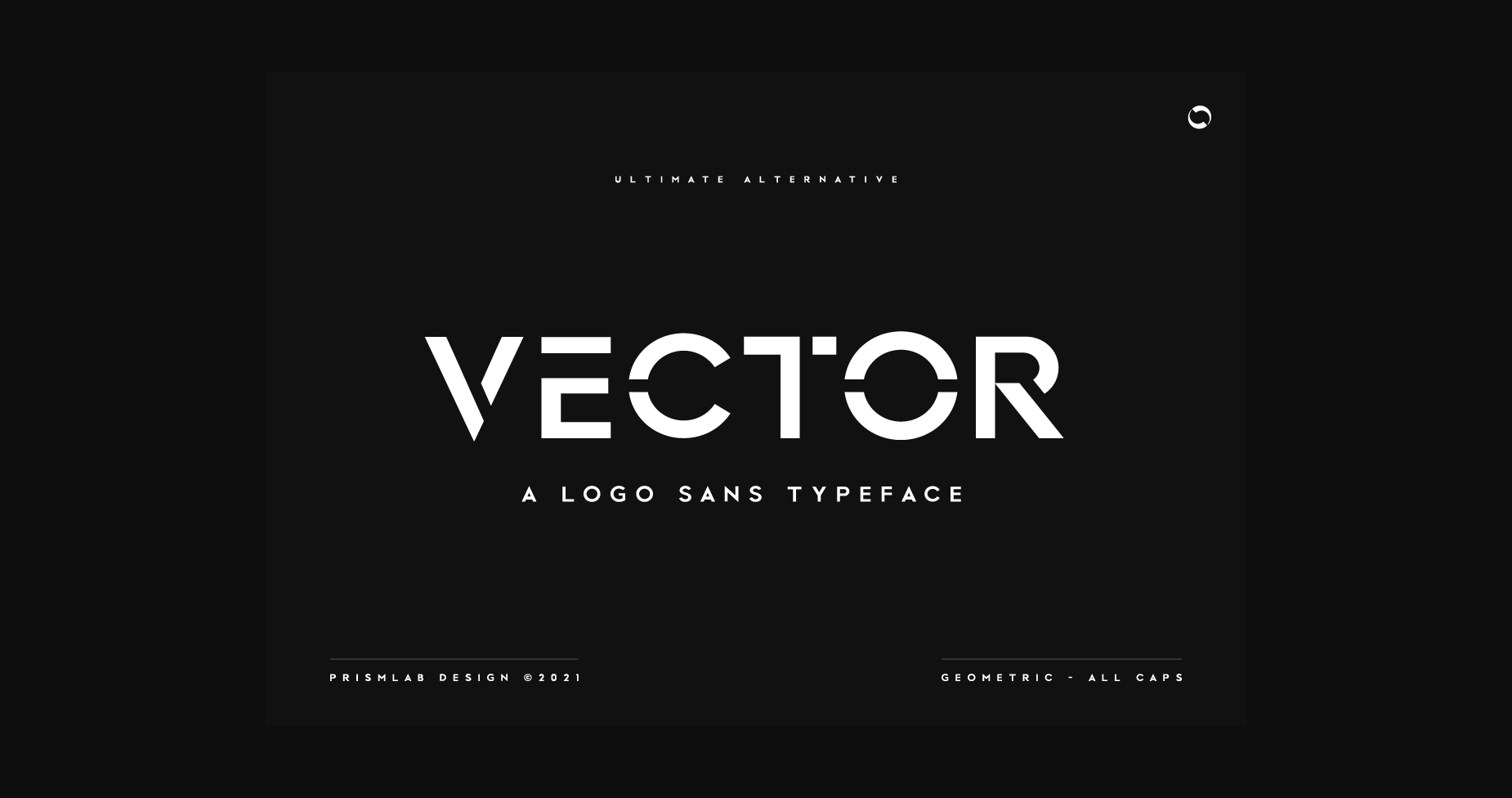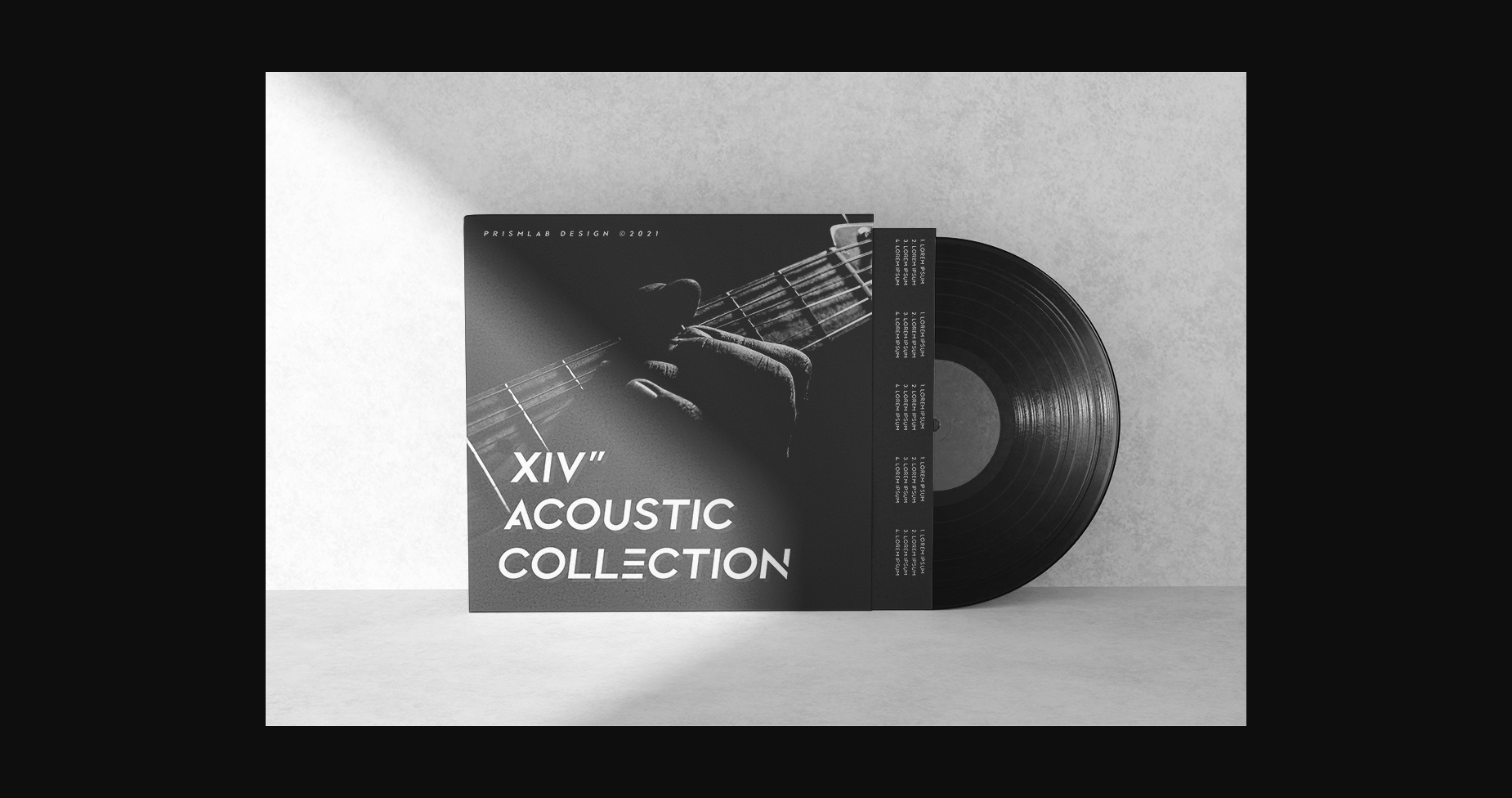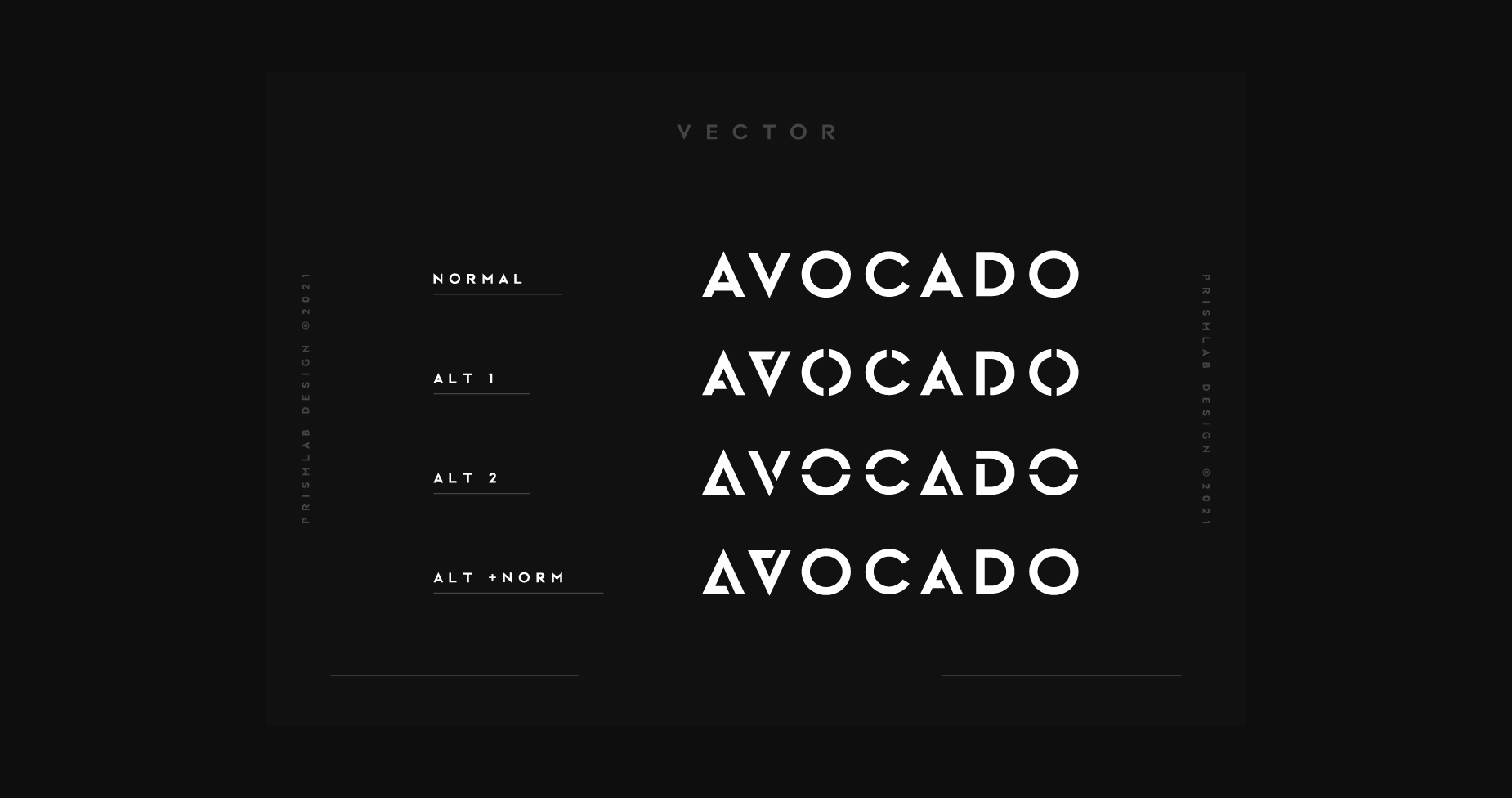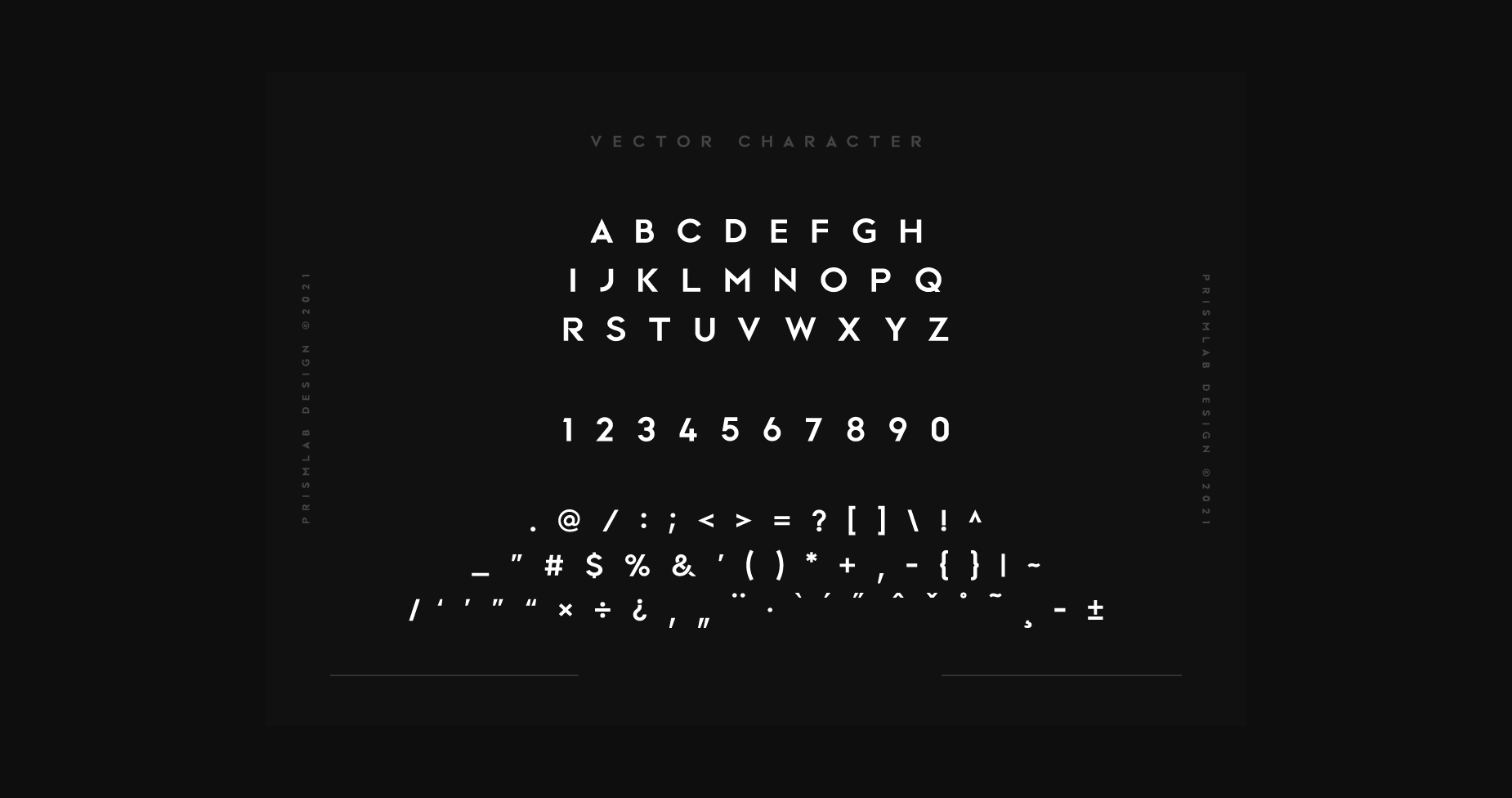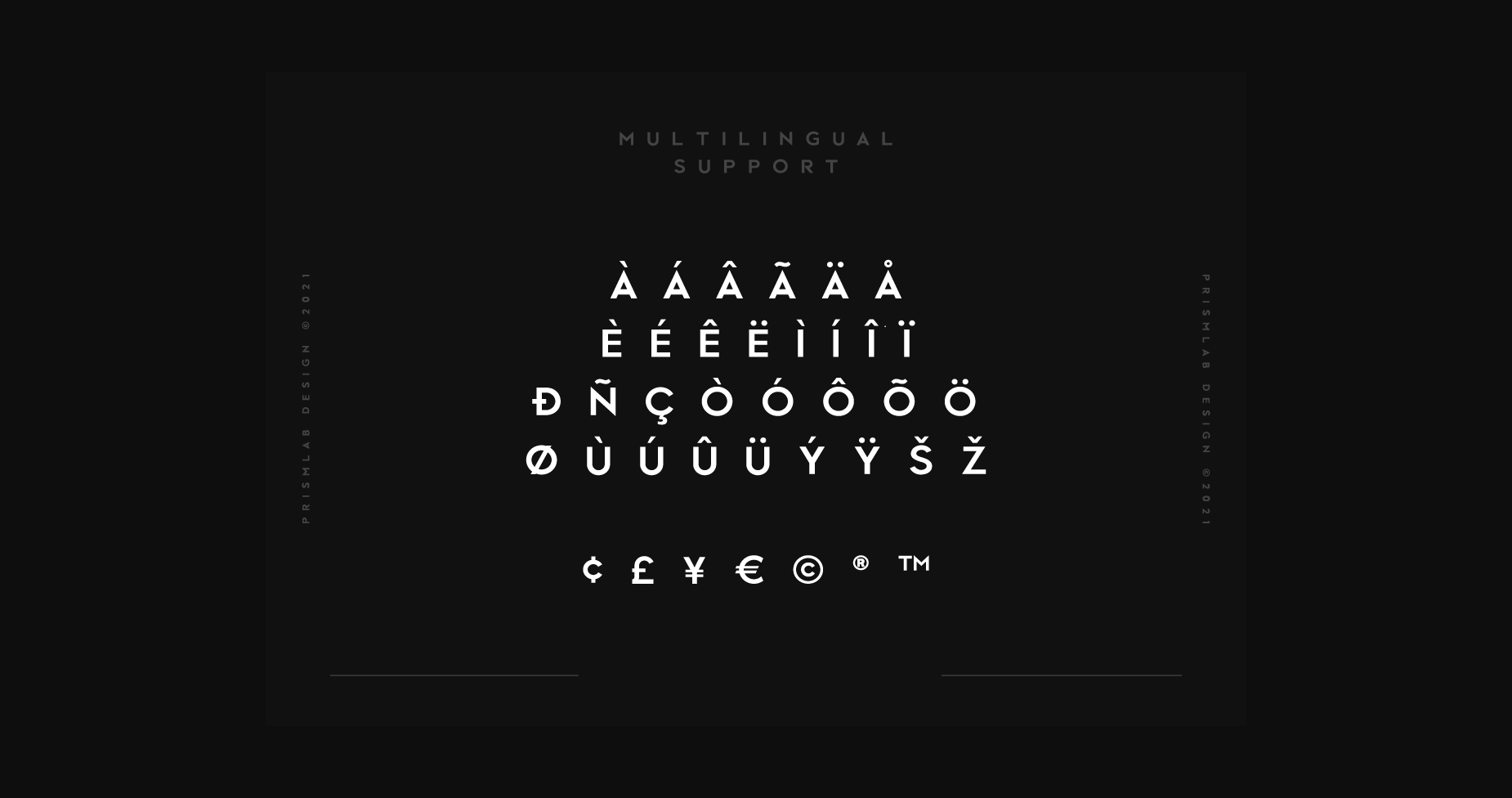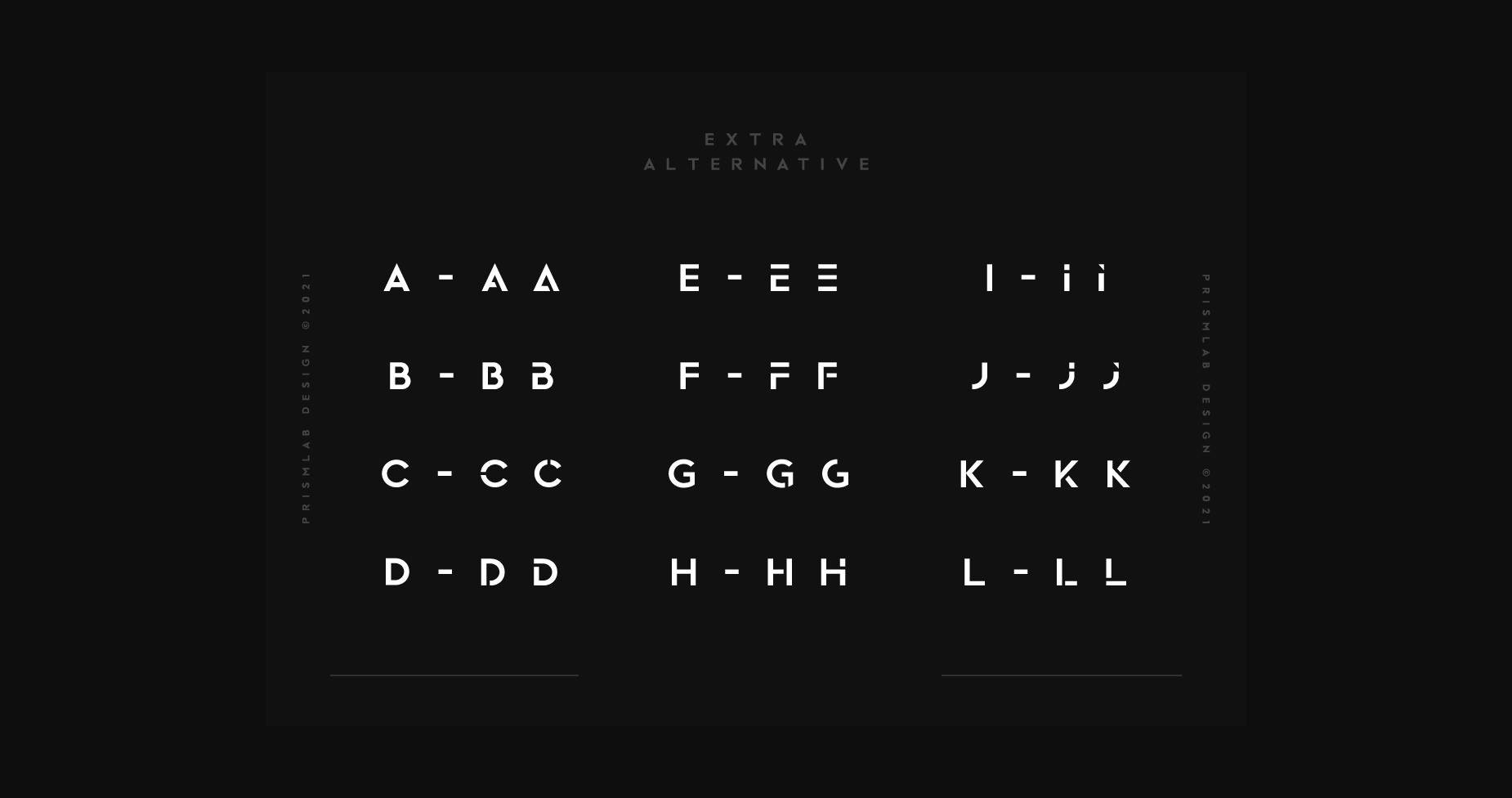
About Vector Font
Vector is a minimal and neat sans serif font. It can easily be matched to an incredibly large set of projects, so add it to your creative ideas and notice how it makes them stand out! Vector is PUA encoded which means you can access all of the glyphs and swashes with ease!